Mint Grotesk
A quirky sans with extensive options for demanding type treatments, including tabular figures. Mint Grotesk is an excellent choice for complex UI design.
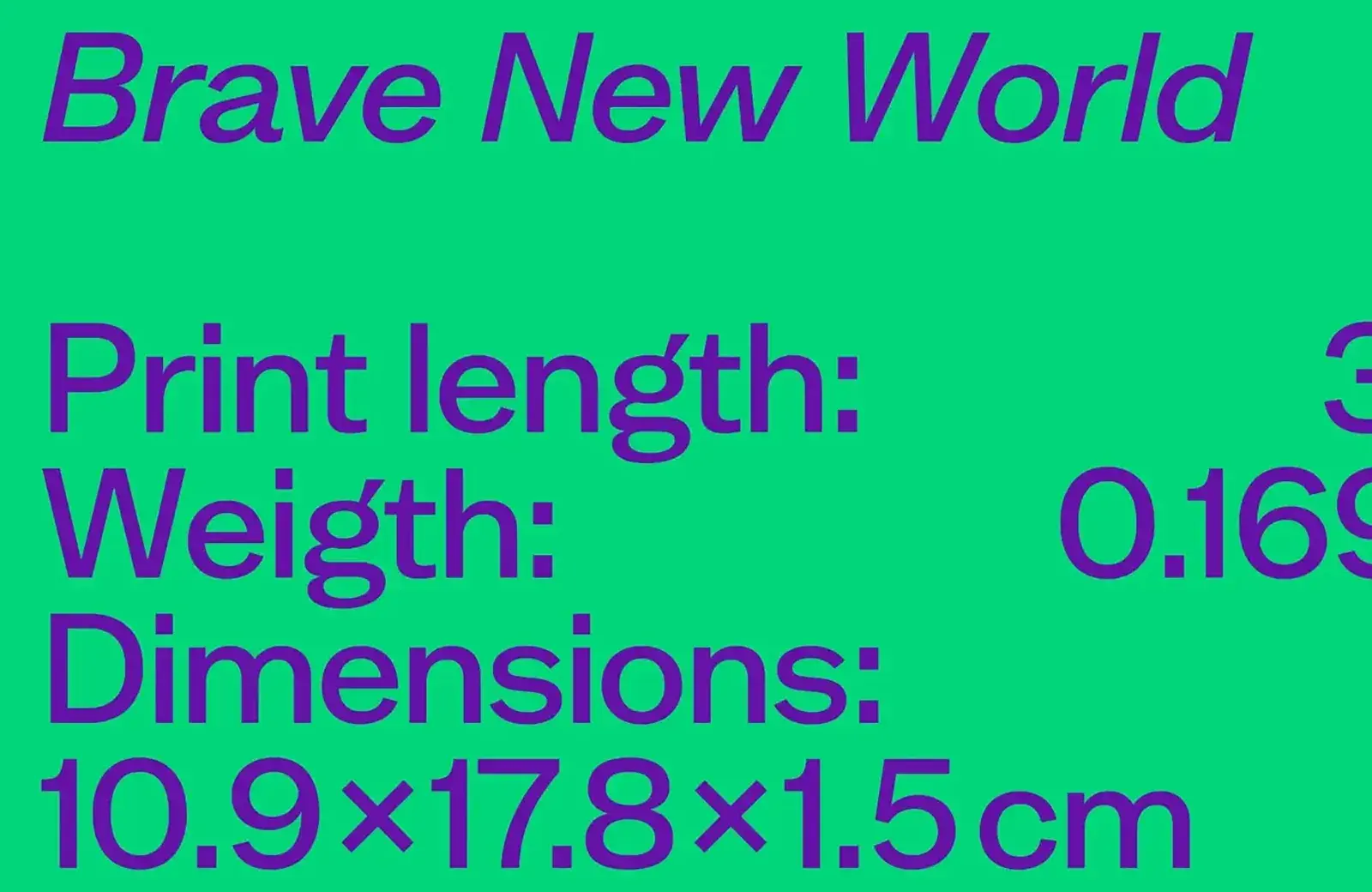
MC Belotra
We love the graceful curves and modest serifs of MC Belotra. The relatively low contrast and flared strokes are both confident and relaxed. A great mood-setter.
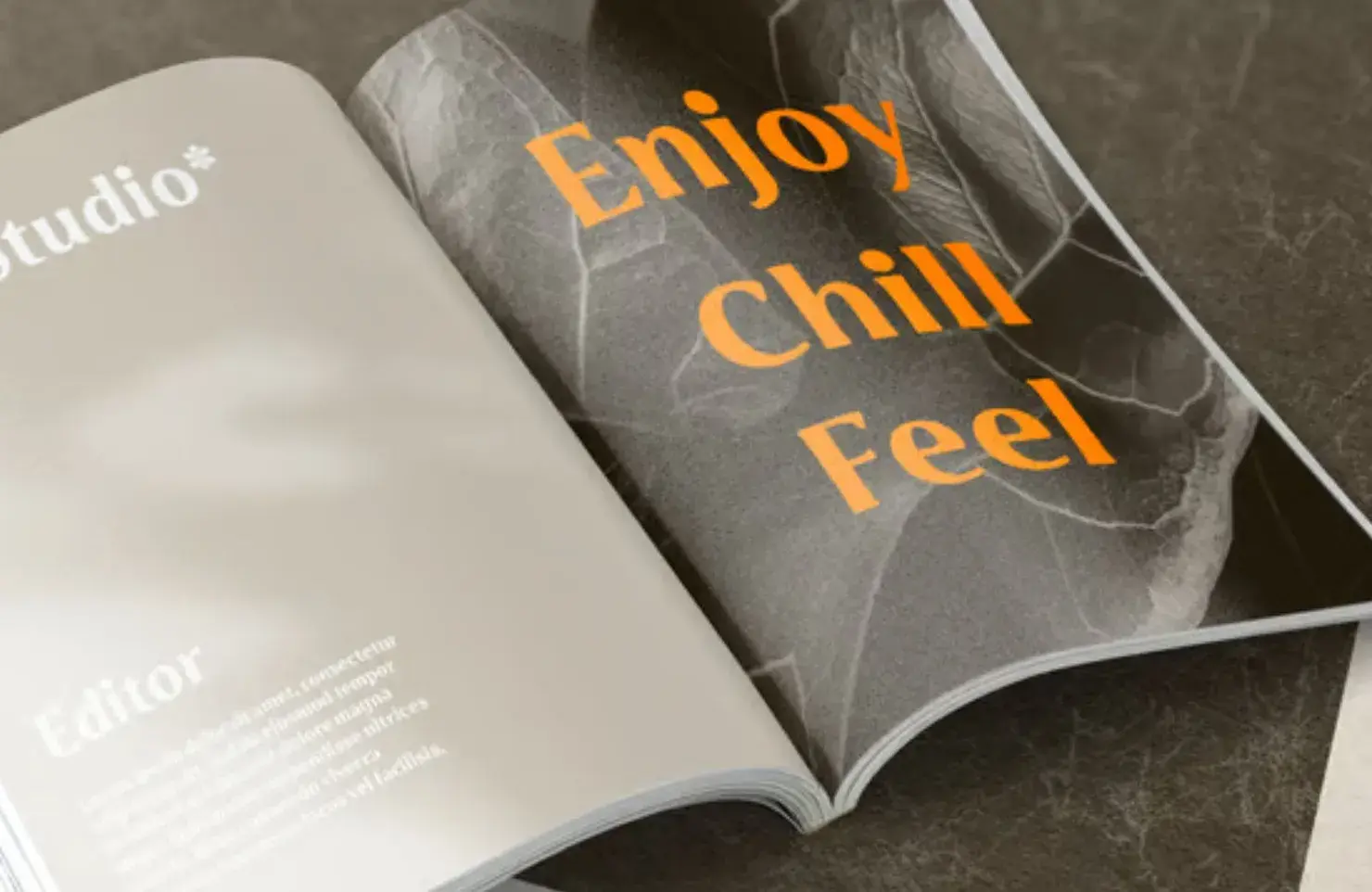
Hanae
Hanae — named for Hanae Mori, the first Asian woman to join a Parisian Haute Couture house — has a generous x-height and classic proportions, making it ideal for running text. Bold and Super weights have been added since we first admired it.
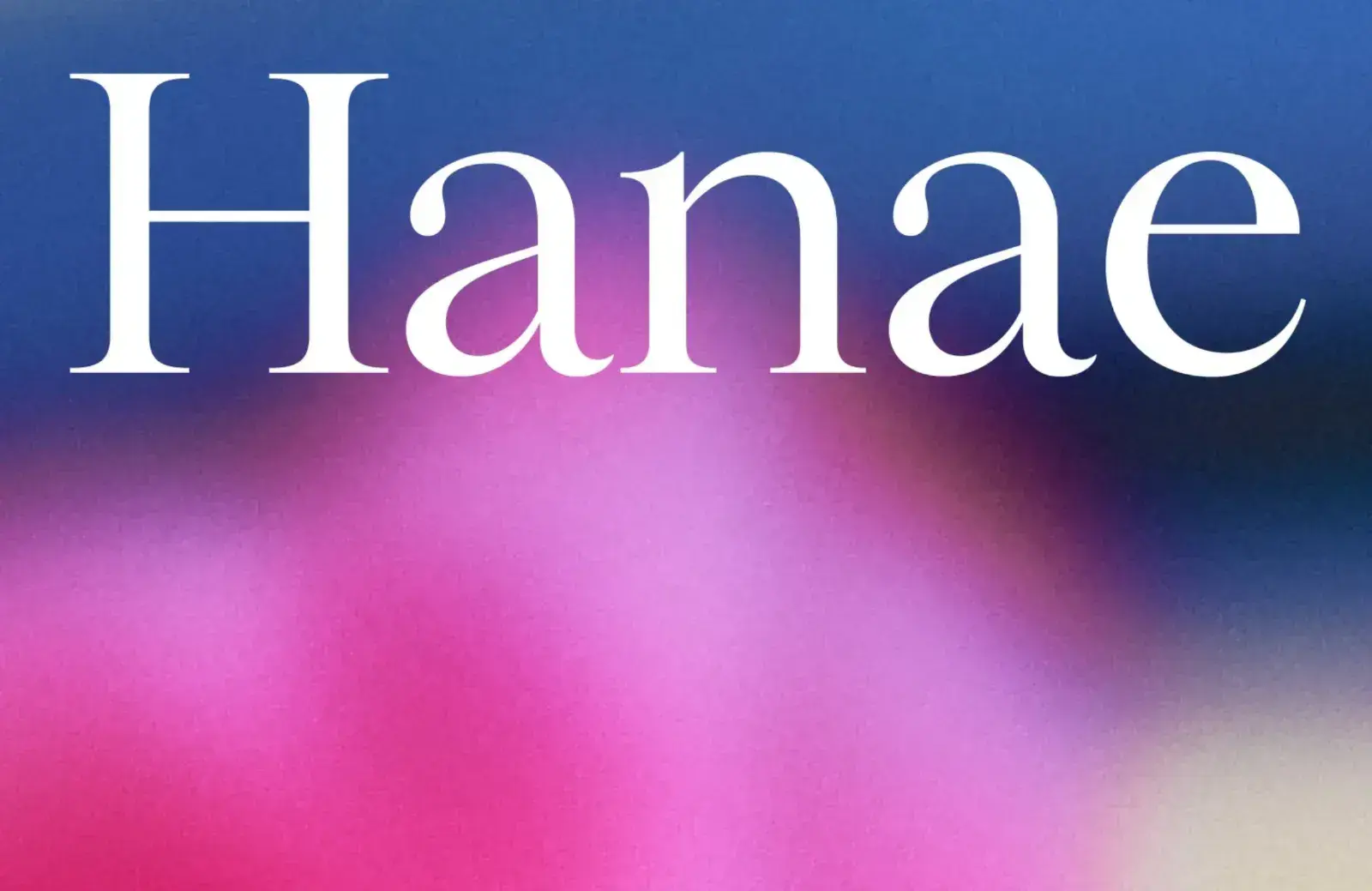
AW Conqueror Stincilla
We were already fans of AW Conqueror, and when we saw AW Conqueror Stincilla, it was love at first sight. The stencil form and sharp terminals are ideal for luxury branding.
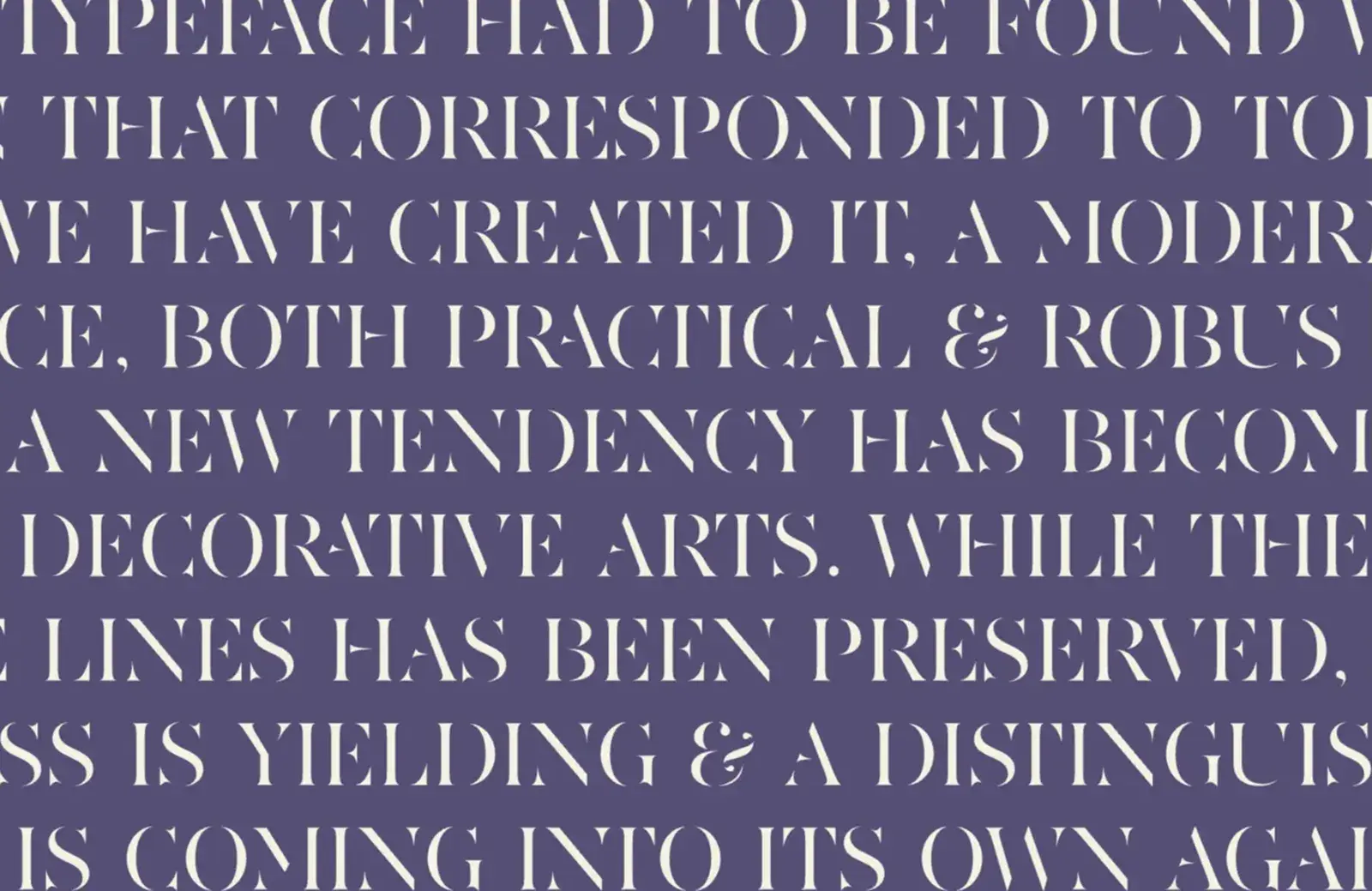
Korium
Korium is an attractive variable font with extremely condensed glyphs. The soft and inviting outward forms are tight and sharp on the inside, creating an edgy contemporary sans.
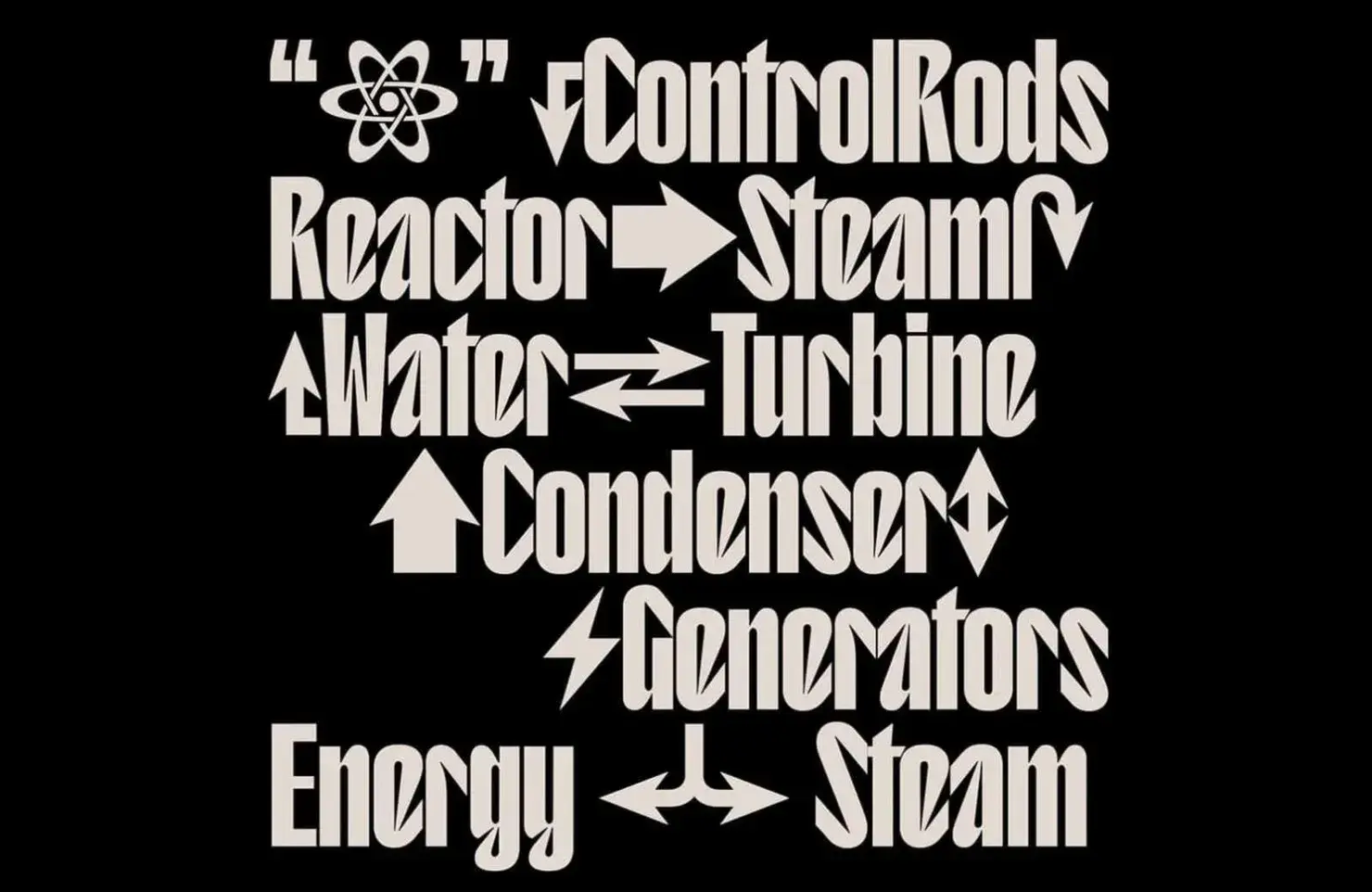
Kolonia
We still haven’t got over the confidence of Kolonia’s lowercase g. This sophisticated serif has a hint of traditional print about it, but there are some lovely details that are distinctly modern.
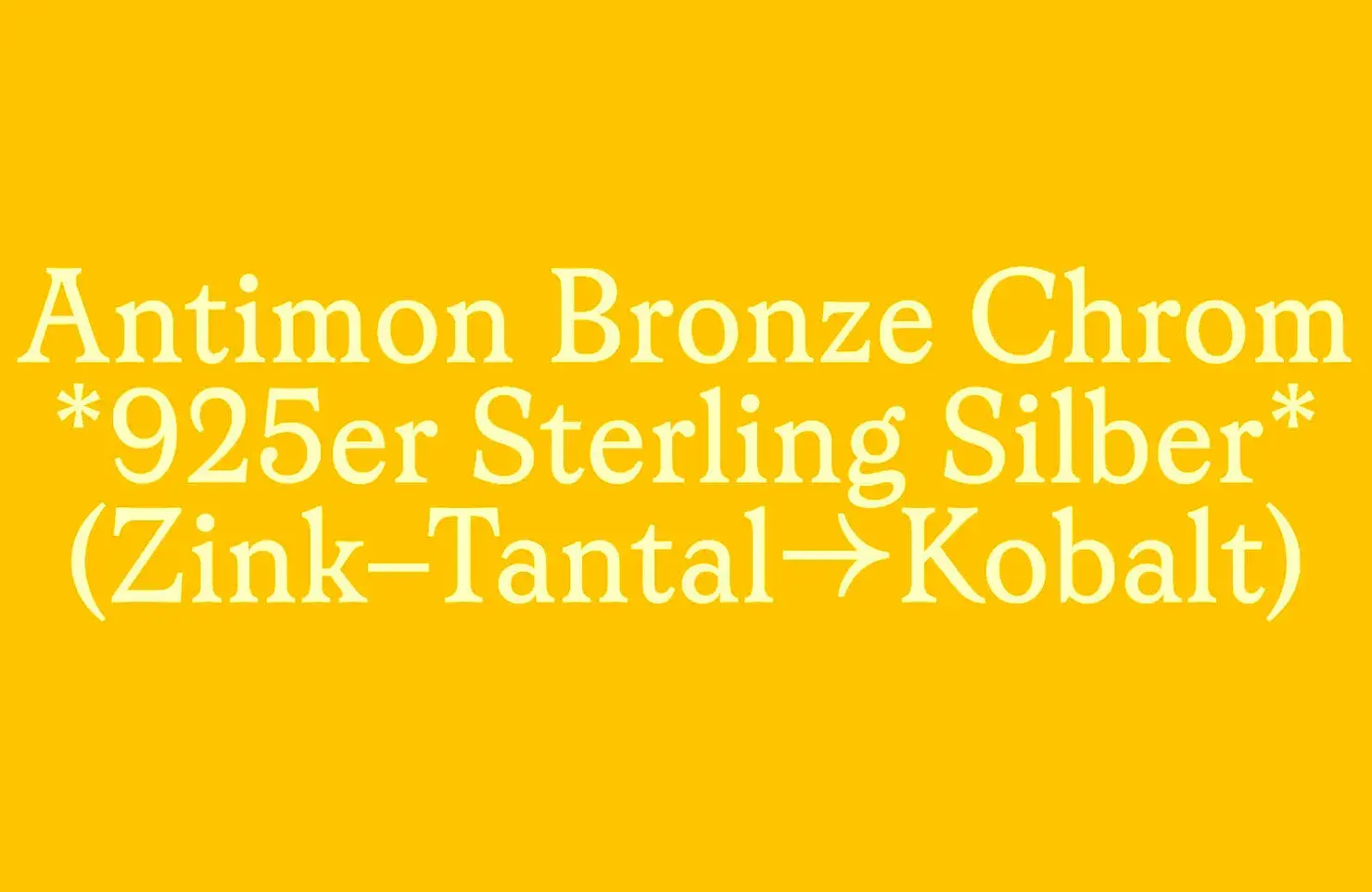
DT Serifia Sans
Another grotesque, this time with flared strokes that almost pop into serifs in the bolder weights. DT Serifia Sans is virtually cartoonish and is an excellent option for display text.
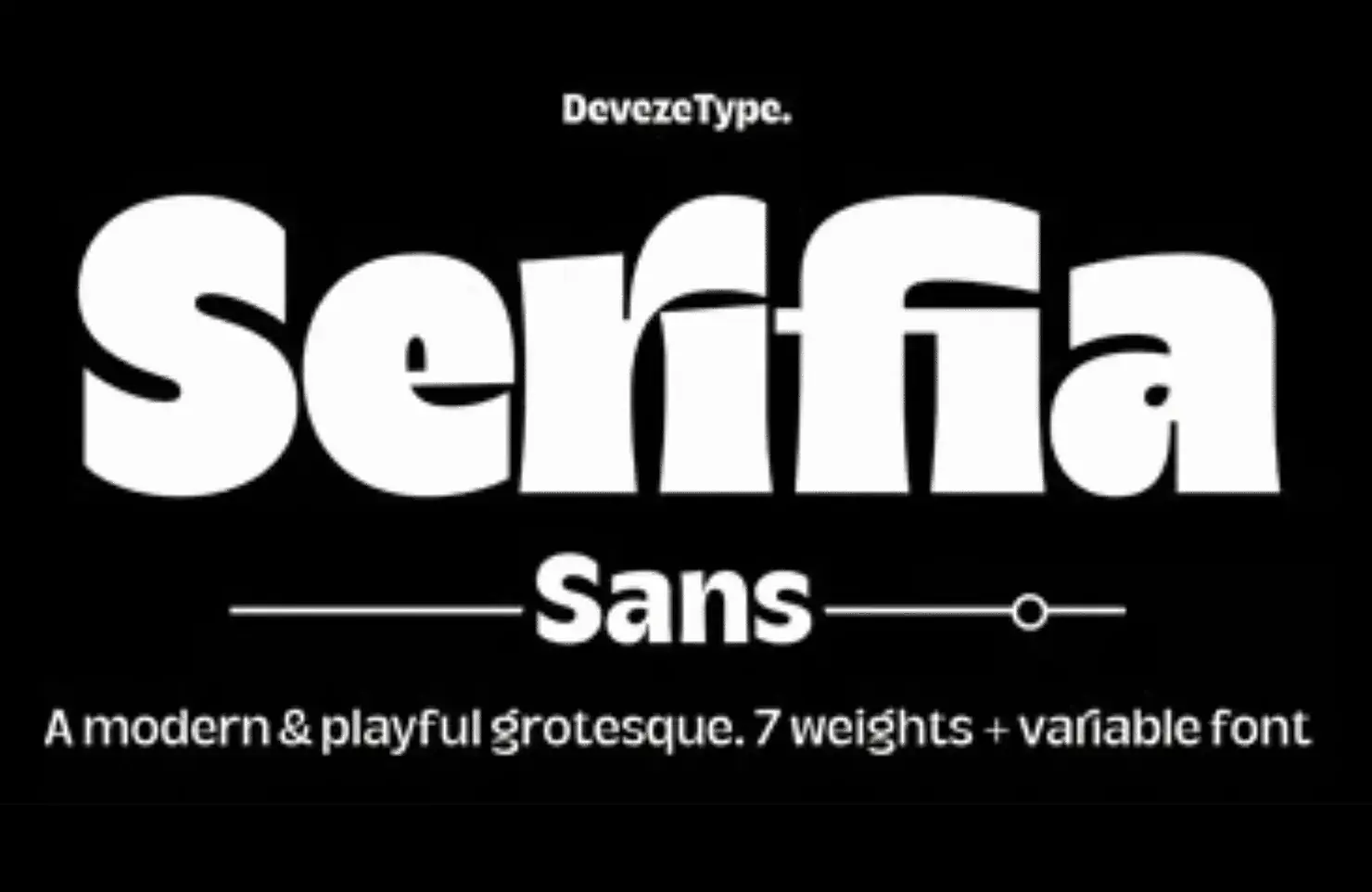
Valpo
Exploring the difference between type and lettering, Valpo feels like it’s been drawn with a fat marker. It’s perfect for vintage signage, and we’re still waiting to see it as part of a graphic novel.
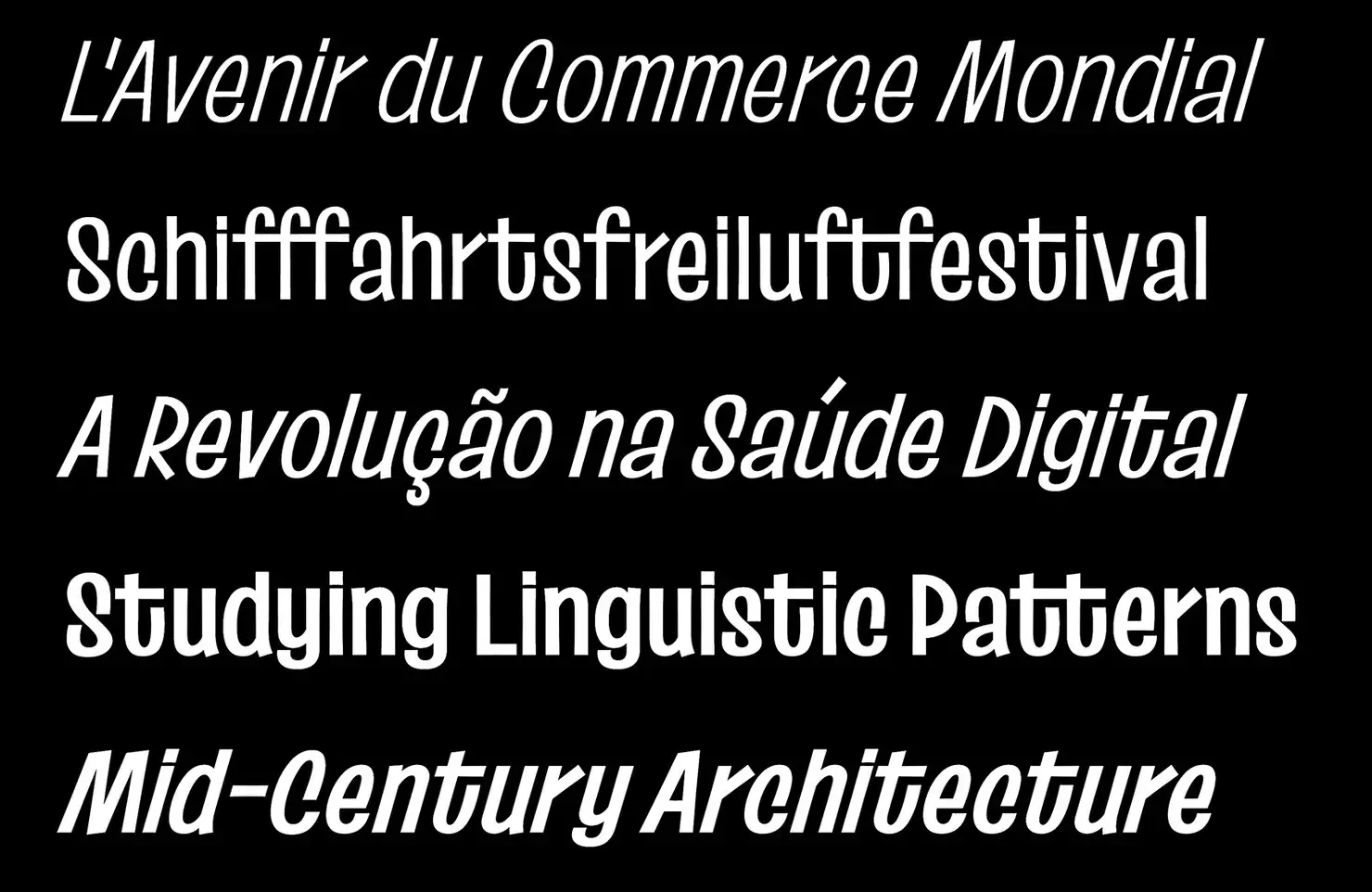
Gamuth
Gamuth is an excellent choice for bold, confident editorial design, with a narrow width and large x-height. It has two versions: text and display.
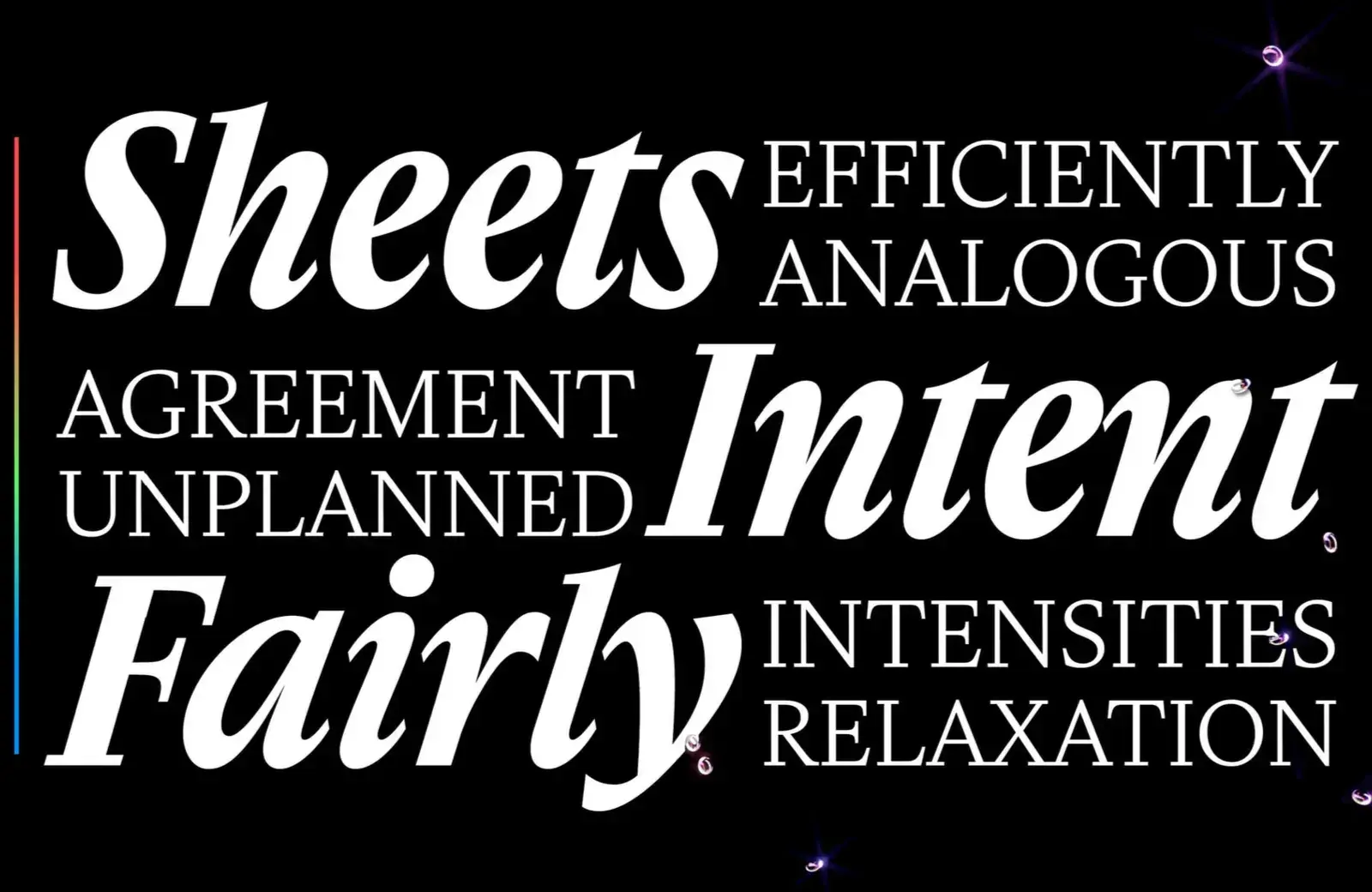
Nusrat
Nusrat has been painstakingly constructed around linked strokes to mimic calligraphy. The font market is crowded with scripts, but Nusrat delivers something new.
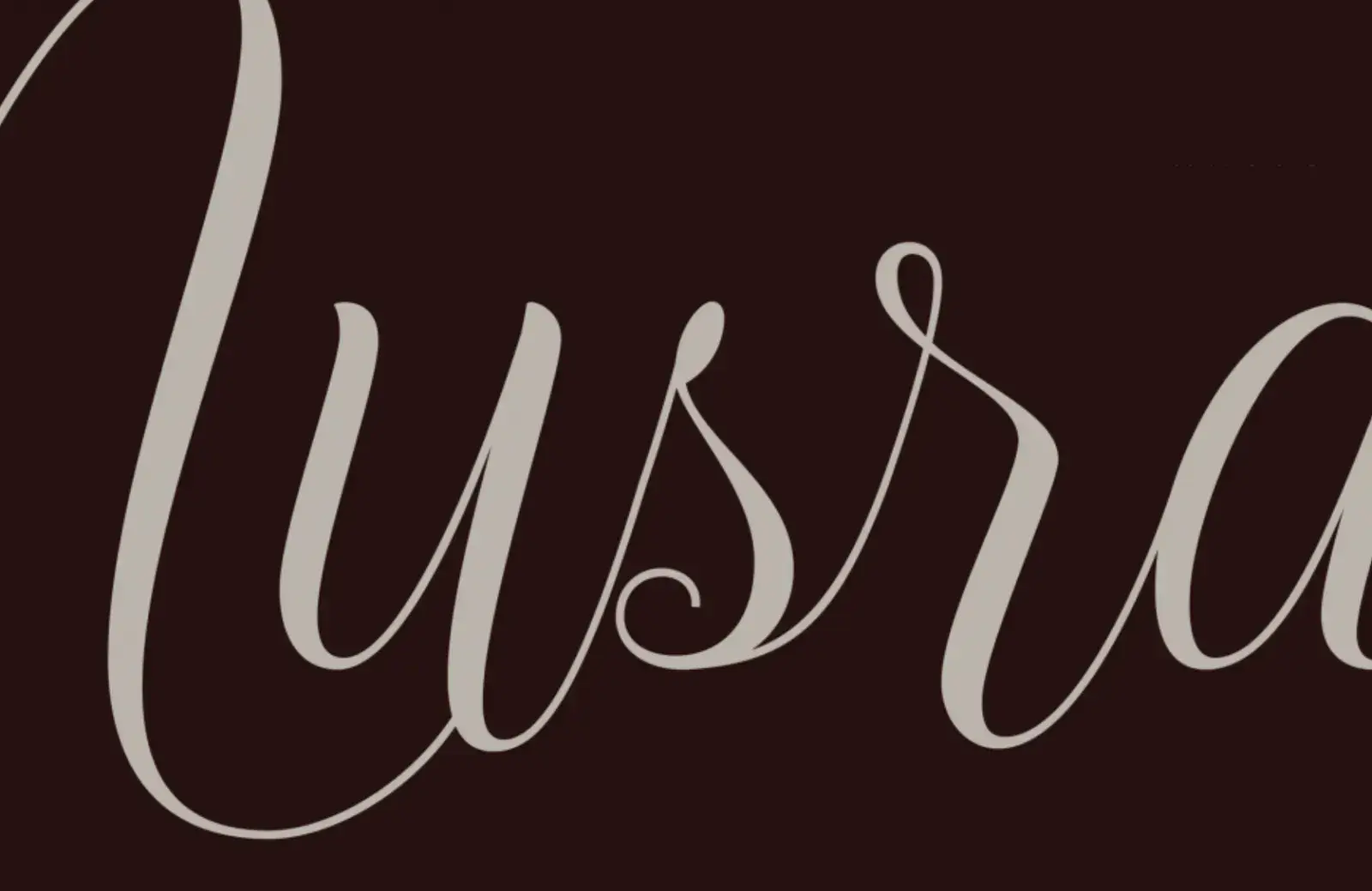
Martina Plantijn
Named for the 17th-century printer, Martina Plantijn is a beautiful Old Style serif that is understated at small sizes and features elegant curves at larger sizes.
Merisca
Merisca is a condensed serif that we’d like to see used in a branding project. We particularly loved the alternate designs that bring the shapes to life.
Mistica
We see a lot of all-caps display fonts that chase a vintage aesthetic, but Mistica is something special. Inspired by the South West United States, it would feel at home anywhere sun-baked.
Adjunct
The spurless design — the vertical strokes don’t extend beyond the bowl — of Adjunct creates a minimal, and graphically bold design that is ideal for logo jobs.
Gretha
Gretha is an excellent option for branding or display type when you can craft the letter combinations. It has a ton of ligatures and alternatives and feels very high-end.
Solfa
The heavy weight and bold graphical shapes of Solfa are great for grabbing attention at large sizes. It’s a rugged, confident typeface that complements the Brutalist trend.
Calleo
Calleo is a modern font family that is highly legible at small sizes and on screens. It has a more experimental “Flux” version that works well as a complementary heading font.
Publish Serif
Publish is a family of Gothic, Sans, and Serif fonts initially designed for the Danish newspaper “Dagen.” It’s a versatile set that works well for editorial design.
Juneau Deco
Juneau Deco is a beautiful example of an architectural type. It was created initially for the Stalwart Group, based on Art Deco lettering adorning its Wisconsin headquarters.
Moisette
Moisette sits at the mid-point between classic and modern type design. The high-contrast ratio and generous x-height are very legible. It’s ideal for any job that needs to feel expensive.
Ernst
Ernst is a stylish slab serif that works well for both running and display text. Its italics are particularly attractive and inspired by the lettering on mid-century Parisian movie theatres.